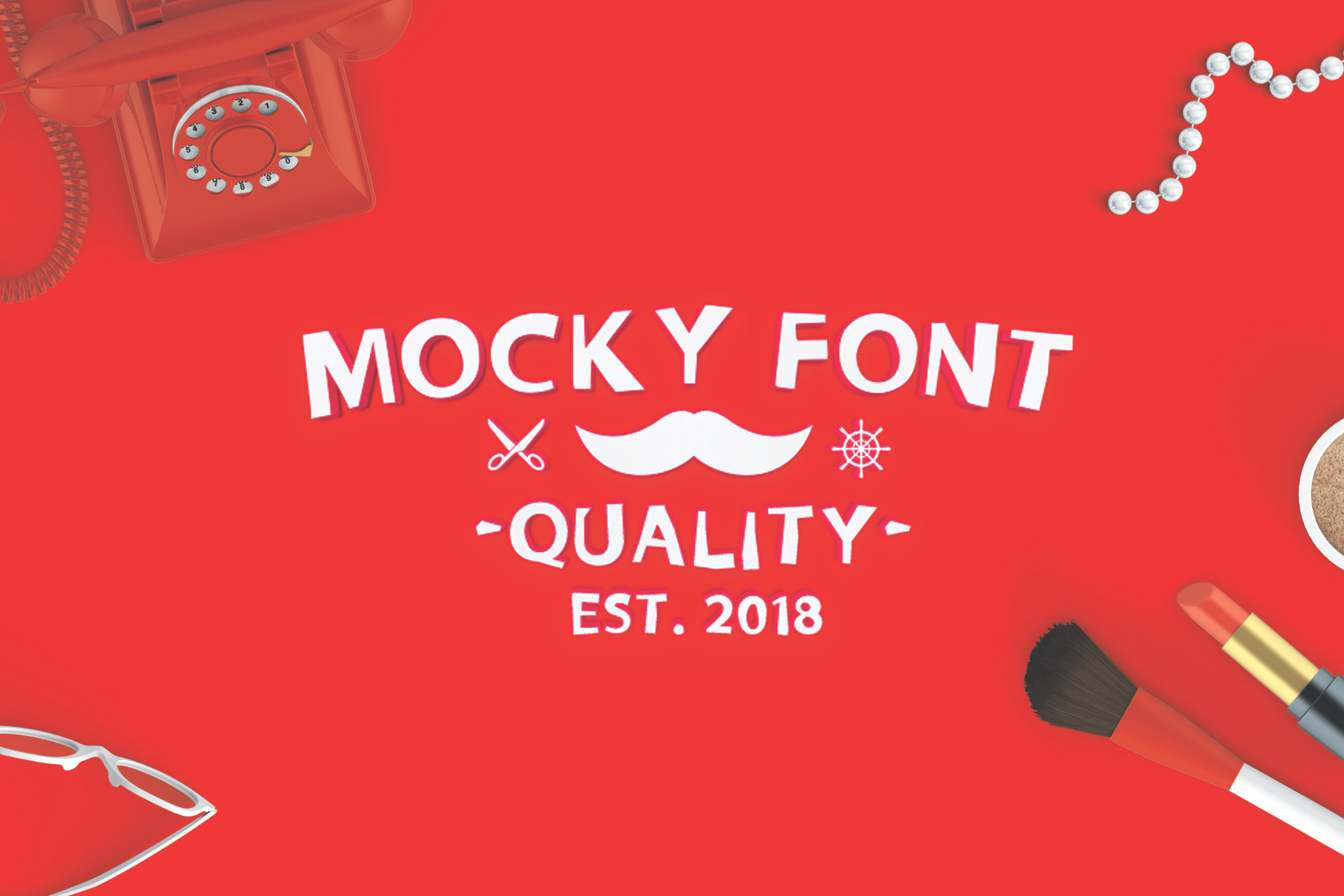
Mocky Font
Mocky Font is comic and bold cartoon style. It 's perfect for your funny and kid products, cards, posters, wall art, branding, diy projects, greeting cards, labels, quotes, packaging, websites and much more.